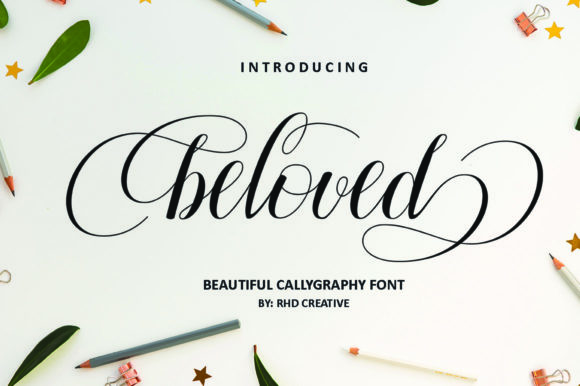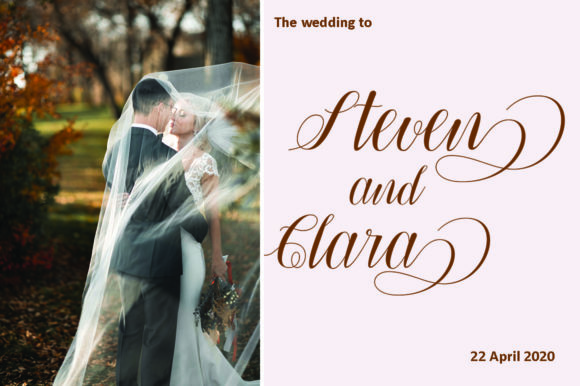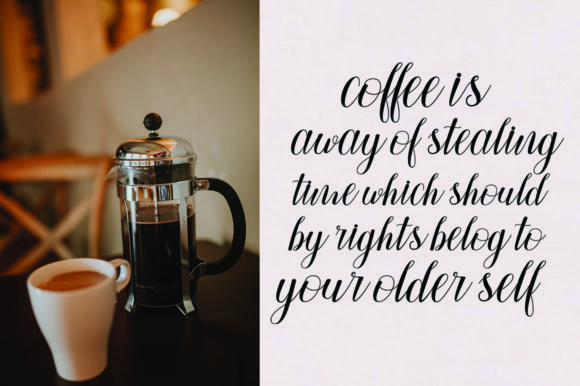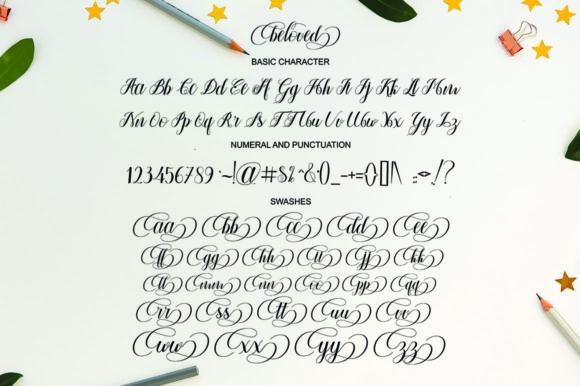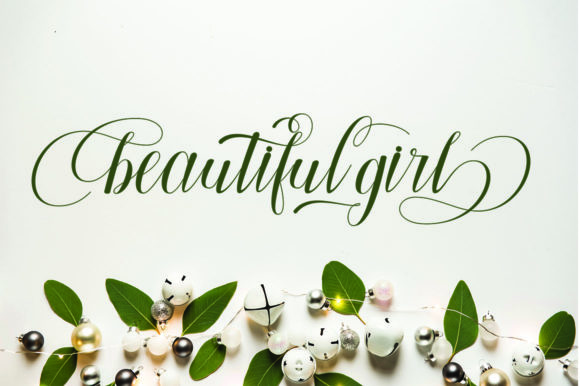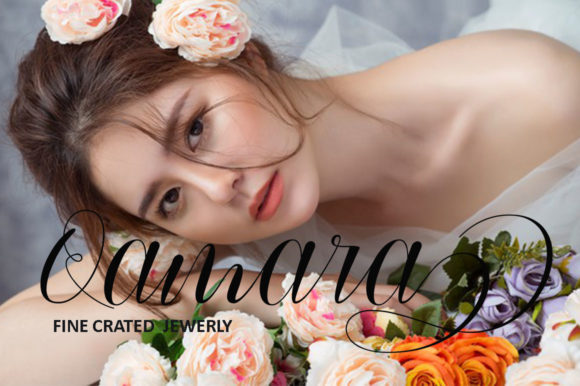
Beloved Font
About Beloved Font
Beloved feels equally charming and elegant. This stunning script font is a stylish homage to classic calligraphy. It will elevate a wide range of design projects to the highest level, be it branding, headings, wedding designs, invitations, signatures, logos, labels, and much more!